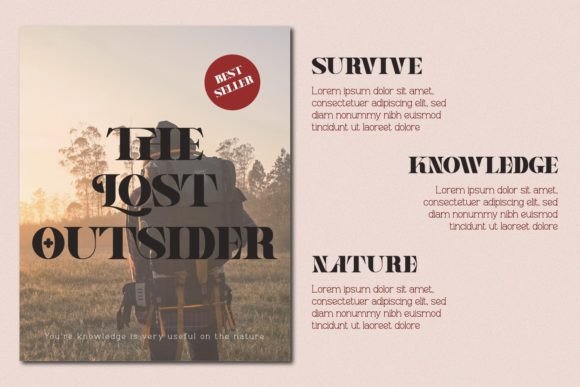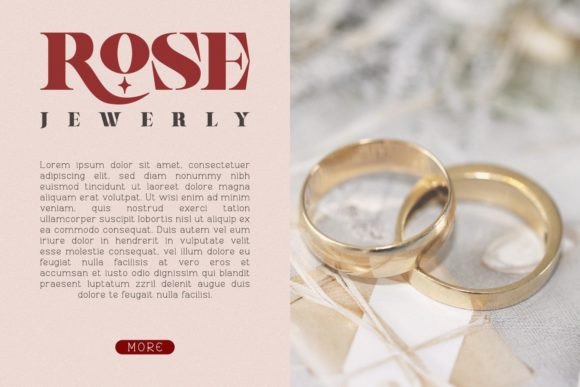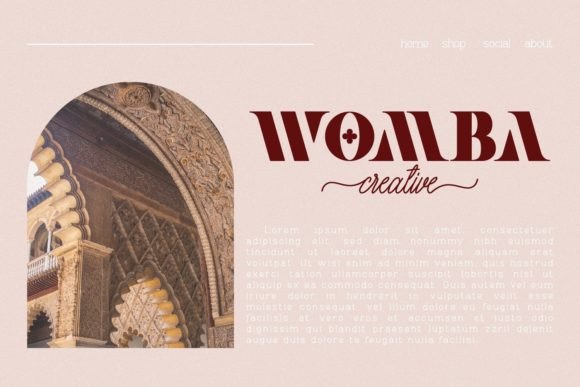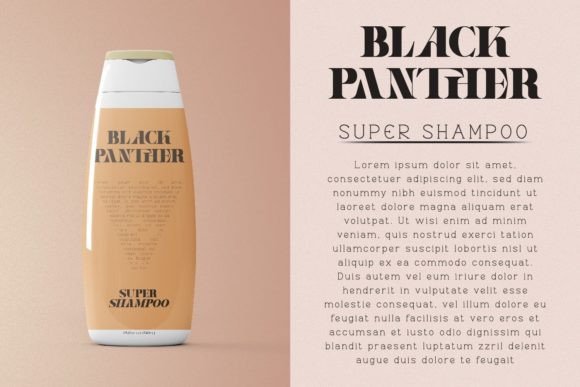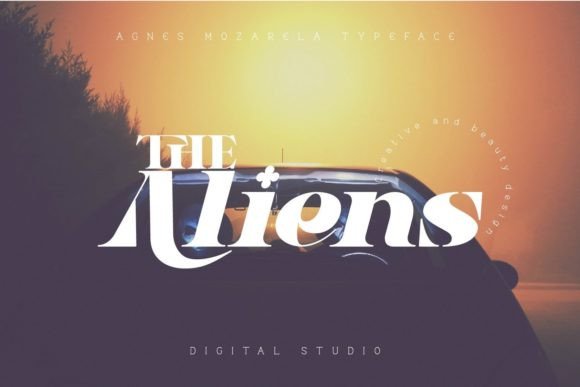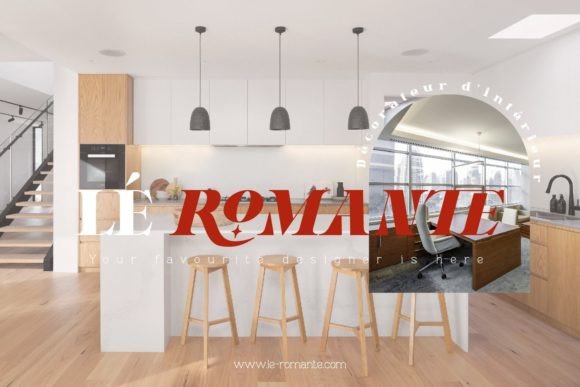
Discover the Elegance of Agnes Mozarela Font: Elevate Your Designs with Luxury and Sophistication
In the world of typography, fonts play a crucial role in conveying the tone and personality of a brand or design. For those seeking a touch of luxury and class, the Agnes Mozarela Font is an exceptional choice. This stunning typeface is designed to add a level of sophistication and elegance to any project, making it perfect for designers and crafters looking to create high-end visuals.
The Unique Charm of Agnes Mozarela Font
Agnes Mozarela Font stands out with its modern, classy feel, coupled with decorative flourishes that elevate it to a new level of luxury. These flourishes are not just aesthetic additions; they bring a unique character to the font, making it versatile for various applications. Whether you’re working on logos, packaging, posters, or any other design project, Agnes Mozarela offers the perfect blend of style and sophistication.
Key Features of Agnes Mozarela Font
- Classy and Modern Feel: Agnes Mozarela boasts a contemporary look that fits well with current design trends while maintaining a timeless elegance.
- Decorative Flourishes: The font includes beautiful, intricate flourishes that add an extra layer of luxury and sophistication to your designs.
- Versatility: Its versatile nature makes it suitable for a wide range of projects, from branding and advertising to packaging and editorial design.
- High Readability: Despite its decorative elements, Agnes Mozarela maintains high readability, making it effective for both headlines and body text.
Applications of Agnes Mozarela Font
The versatility of Agnes Mozarela Font makes it an excellent choice for various design projects. Here are some of the areas where it can make a significant impact:
- Logo Design: Create memorable and elegant logos that stand out with Agnes Mozarela’s unique charm.
- Packaging Design: Elevate your product packaging with a sophisticated look that appeals to discerning customers.
- Poster Design: Design eye-catching posters for events, promotions, or advertisements with a touch of luxury and class.
- Branding and Advertising: Use Agnes Mozarela to develop a cohesive brand image that exudes elegance and sophistication.
Tips for Using Agnes Mozarela Font Effectively
To maximize the impact of Agnes Mozarela Font in your designs, consider the following tips:
- Mix and Match: Combine Agnes Mozarela with simpler fonts to create a balanced and visually appealing design.
- Play with Sizes: Use different sizes to emphasize certain parts of your text, making your design more dynamic.
- Utilize Flourishes: Take advantage of the decorative flourishes to add a unique touch to your design, but use them sparingly to maintain elegance.
Agnes Mozarela Font is a powerful tool for designers and crafters aiming to infuse their projects with a sense of luxury and class. Its modern feel, coupled with decorative flourishes, makes it an excellent choice for a wide range of applications. By incorporating Agnes Mozarela into your design repertoire, you can create stunning visuals that leave a lasting impression. Whether you’re working on a logo, packaging, or a poster, this elegant font is sure to elevate your designs to new heights of sophistication and style.
Embrace the elegance of Agnes Mozarela Font and discover a world of limitless design possibilities that blend modernity with luxury.